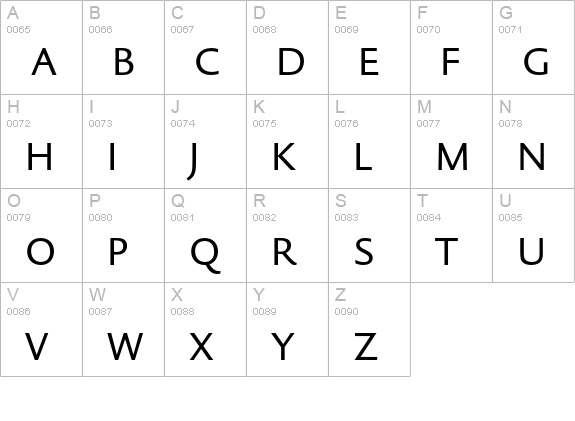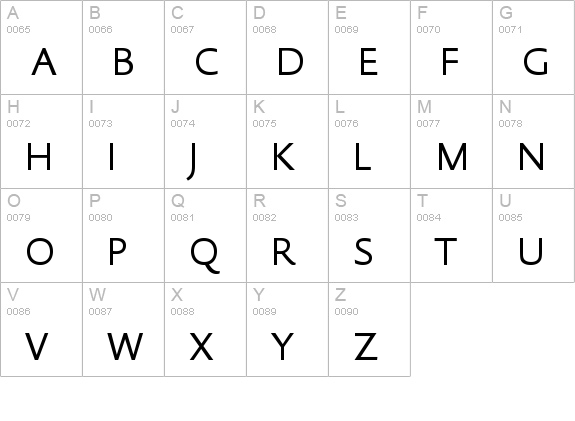
DTLHaarlemmerSansD-Caps font is a stylish and modern typeface that exudes sophistication and elegance. Its clean lines and bold capital letters make it perfect for adding a touch of class to any design project. Whether you're designing a logo, heading, or any other text element that needs to stand out, DTLHaarlemmerSansD-Caps font is sure to make a statement. And the best part? This stunning font is available for free download at FontsMarket.com. Don't miss out on the opportunity to elevate your designs with this versatile and eye-catching typeface. Download DTLHaarlemmerSansD-Caps font today and take your projects to the next level.